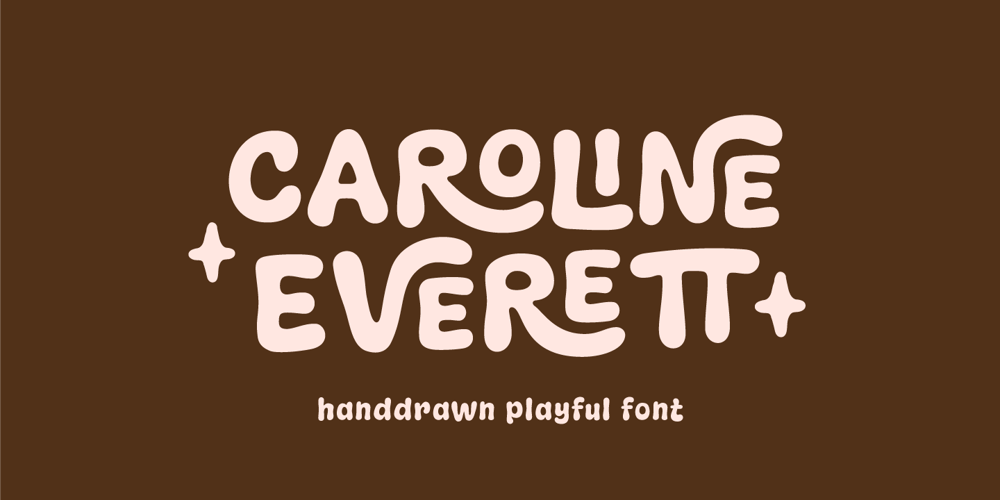
Caroline Everett
Caroline Everett font
Caroline Everett Font Family was designed by Akhmad Reza Fauzi and published by Grezline Studio. Caroline Everett contains 2 styles and family package options. Caroline Everett is a fun, cheerful and playful font. This cute display font will add a unique touch to your designs. Caroline Everett font is perfect for a design that requires a playful accent. It is suitable for book covers, posters, packaging, merchandise, logotype, and much more.Features :- Ligature & Alternate glyphs- Multilingual Language- Works on PC & Mac- Simple installations- Accessible in the Adobe Illustrator, Adobe Photoshop, Adobe InDesign, even works on Microsoft Word.Thank you for your support!!Grezline Studio – Akhmad Reza Fauzi